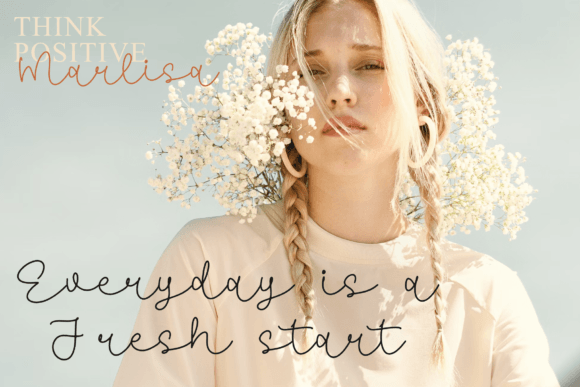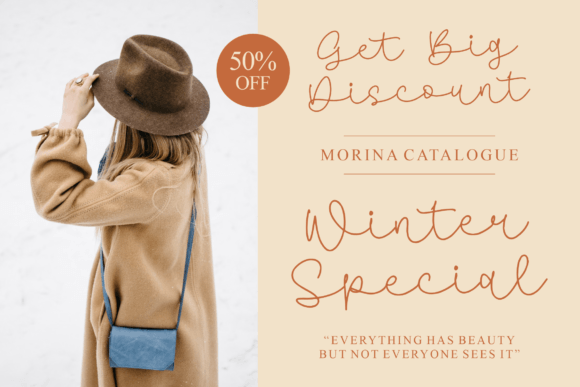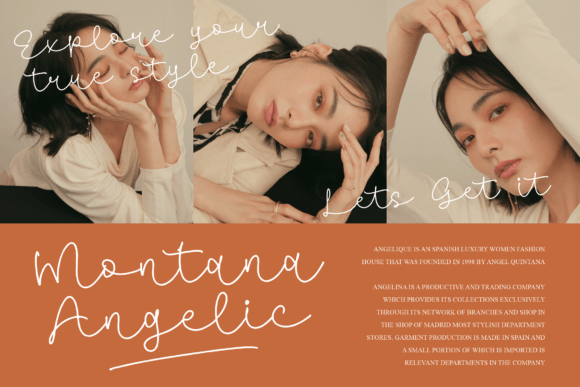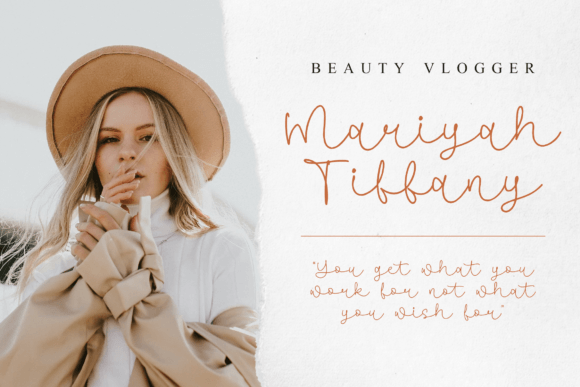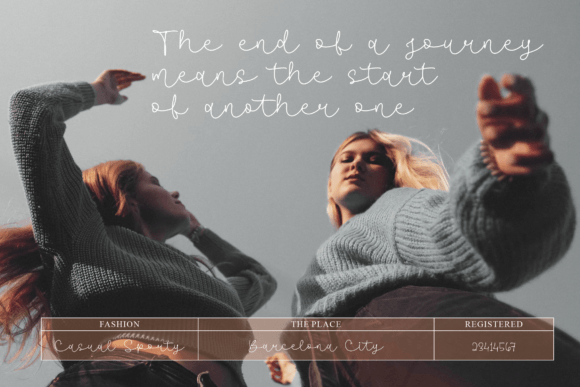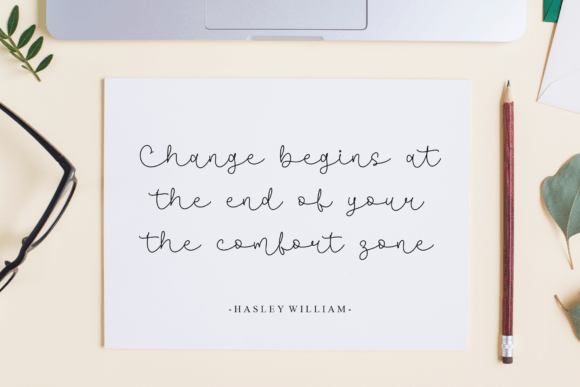
The Perfect Script: Unlocking the Magic of Agatha Smiley Font
Have you ever stared at a blank canvas, feeling the weight of creativity on your shoulders? The cursor blinks, taunting you with its emptiness, as you search for the perfect font to bring your vision to life. This is where Agatha Smiley Font steps in – a stunning monoline script designed to elevate your projects from ordinary to extraordinary.
With its elegant, flowing lines, Agatha Smiley Font is the perfect companion for any design project. Whether you’re crafting logos, branding materials, or homeware designs, this beautiful font adds a touch of sophistication and charm. As a designer, you’ll appreciate its versatility and the endless possibilities it offers. The Agatha Smiley Font is more than just a typeface – it’s a tool to help you tell your story and connect with your audience on a deeper level.
- Unique Characteristics: Hand-drawn, distressed, and vintage-inspired design with a touch of elegance and sophistication
Designer Review: Agatha Smiley Font
- ✨ Elegant and whimsical feel: The Agatha Smiley font has a unique, vintage aesthetic that’s perfect for projects that need a touch of sophistication.
- ✨ Versatile: This font can be used for a wide range of projects, from greeting cards to book covers, and still looks great.
- ✨ Beautiful script connections: The font’s script connections are smooth and flowing, making it a great choice for projects that require a lot of text.
- ⚠️ Limited font sizes: The font doesn’t look great at very small or very large font sizes. It’s best used at medium to large font sizes.
- ⚠️ Some letters may not render correctly: I’ve noticed that some letters, particularly those with a lot of curves, may not render correctly in certain situations.
- ⚠️ Limited language support: The font only supports a limited number of languages, which may be a issue for projects that require a lot of non-English text.
The Agatha Smiley font is a beautiful and versatile choice for projects that need a touch of elegance and whimsy. However, its limitations should be taken into consideration before using it for larger or more complex projects. With some careful planning and consideration, this font can be a great addition to your design toolkit.
Use Agatha Smiley Font for titles, headings, and emphasis to add a touch of elegance to your designs. Experiment with different font sizes and styles to create visual interest. Combine Agatha Smiley Font with other fonts to create a unique and eye-catching typography.
Compared to Agatha Smiley Font, Carolyna Pro has a more refined and polished look, making it suitable for high-end designs. While Agatha Smiley Font has a playful, handwritten feel, Carolyna Pro is more formal and sophisticated.
Compared to Agatha Smiley Font, Alex Brush has a more cursive and flowing feel, making it suitable for designs that require a sense of movement and energy. While Agatha Smiley Font has a more playful and whimsical feel, Alex Brush is more elegant and refined.